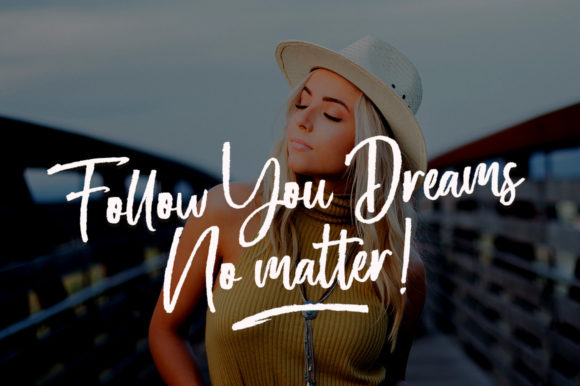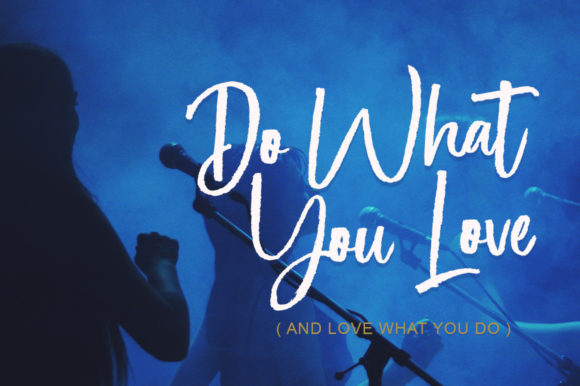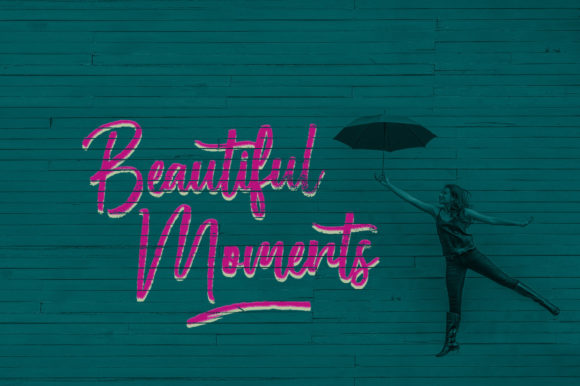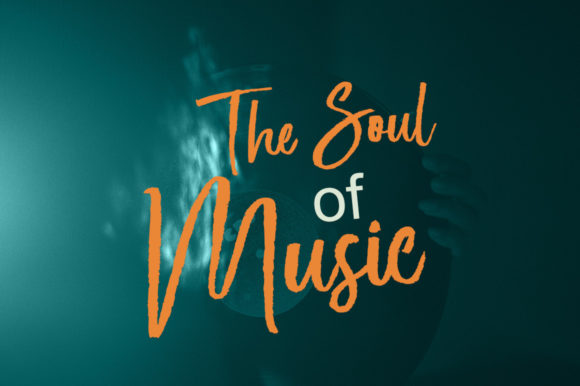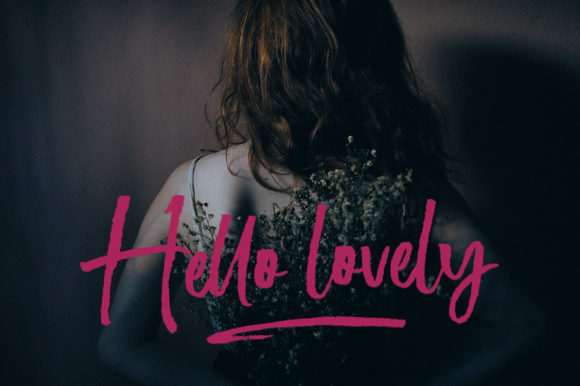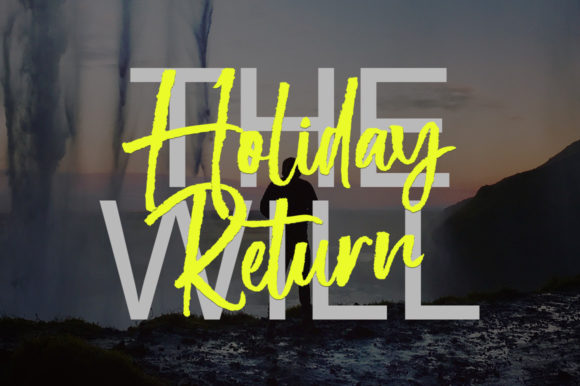
Unleash the Elegance of Your Designs with Beach Rock Font
There’s something magical about the feeling of sand between your toes and the sound of waves crashing against the shore. It’s a moment of serenity that often sparks creativity. For designers, this feeling can translate into a beautiful, hand-drawn font that captures the essence of a seaside escape. The Beach Rock Font is a stylish and brushed script font that can be used for a wide range of projects, from blog posts to logos and branding.
This PUA-encoded font is a valuable tool for designers, allowing them to access all of the glyphs and swashes with ease. Whether you’re creating a tropical getaway brochure or a summer-themed invitation, the Beach Rock Font is sure to add a touch of elegance and whimsy to your designs.
- Unique Characteristics: Beach Rock Font features a distressed, beachy aesthetic with a mix of rough textures and worn typography, giving it a unique and eye-catching appearance.
Designer Review: Beach Rock Font
As a designer, I was excited to dive into the Beach Rock Font and see what it had to offer. Here’s my honest review:
- Unique and beach-inspired aesthetic – The Beach Rock Font is perfect for any project that needs a relaxed, coastal vibe.
- Good for headings and titles – The font’s bold and playful nature makes it well-suited for headings and titles in brochures, posters, and other print materials.
- Works well with bright colors – The Beach Rock Font pairs nicely with bright, sunny colors to create a fun and lively atmosphere.
- Limited legibility at small sizes – The Beach Rock Font can be a bit tricky to read at small sizes, which may be a concern for digital applications.
- May not be suitable for formal projects – The font’s casual, beachy vibe may not be the best fit for formal projects or those that require a more professional tone.
- Not ideal for body text – While the font is great for headings and titles, it may not be the best choice for body text due to its playful, attention-grabbing nature.
The Beach Rock Font is a great addition to any designer’s toolkit, but it’s essential to use it in the right context. When paired with bright colors and used for headings and titles, it can add a fun and beachy vibe to any project. However, it may not be the best choice for formal projects or digital applications where legibility is crucial.
For best results, use the Beach Rock font in combination with other beach-themed elements, such as images of palm trees, seashells, or waves.
Experiment with different font sizes and colors to create visual interest and emphasis.
Use the Beach Rock font to create a consistent brand identity across multiple designs and materials.
The Beach Rock font is ideal for:
Beach-themed event invitations and promotional materials.
Summer-themed packaging and branding materials.
Travel and tourism marketing materials.